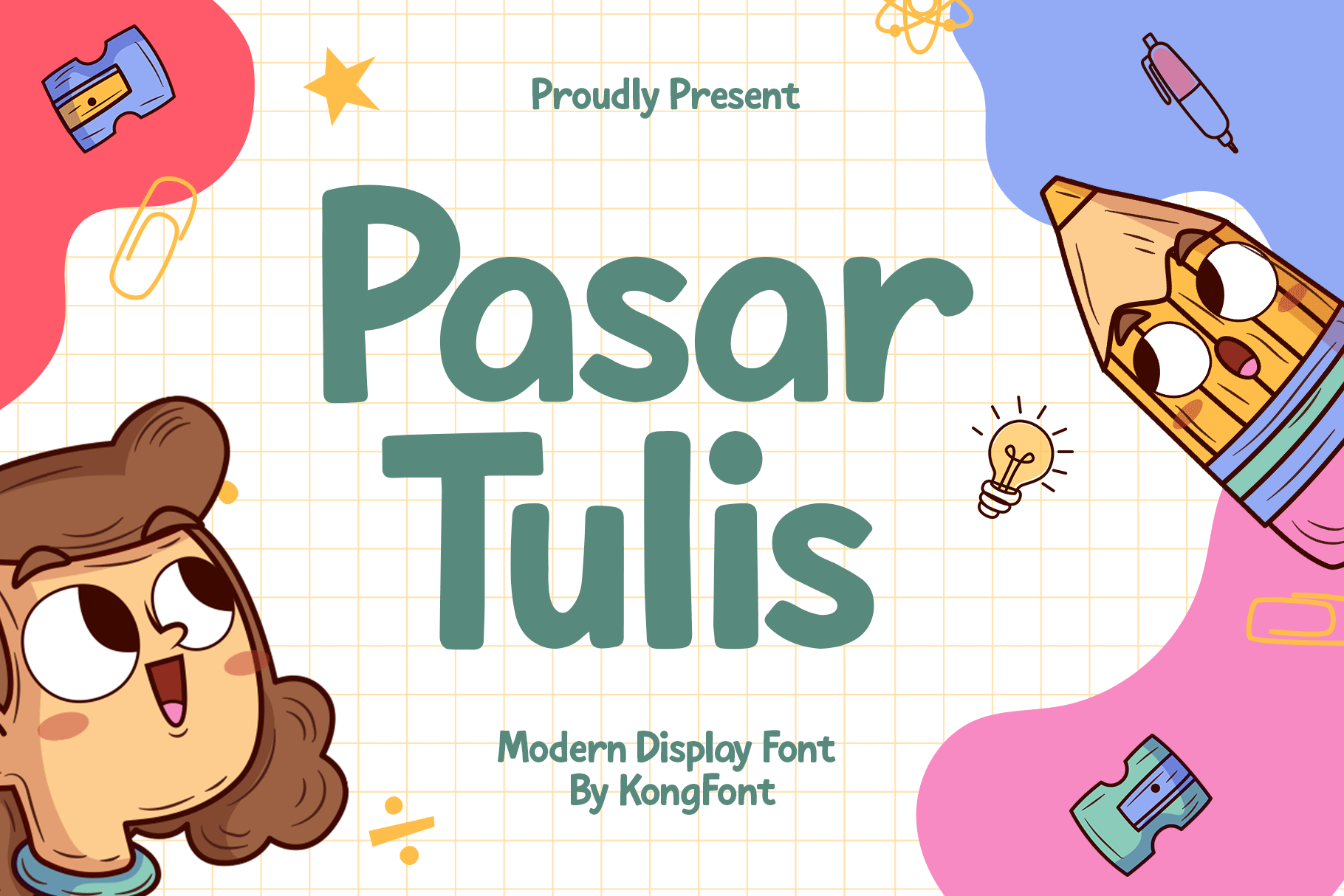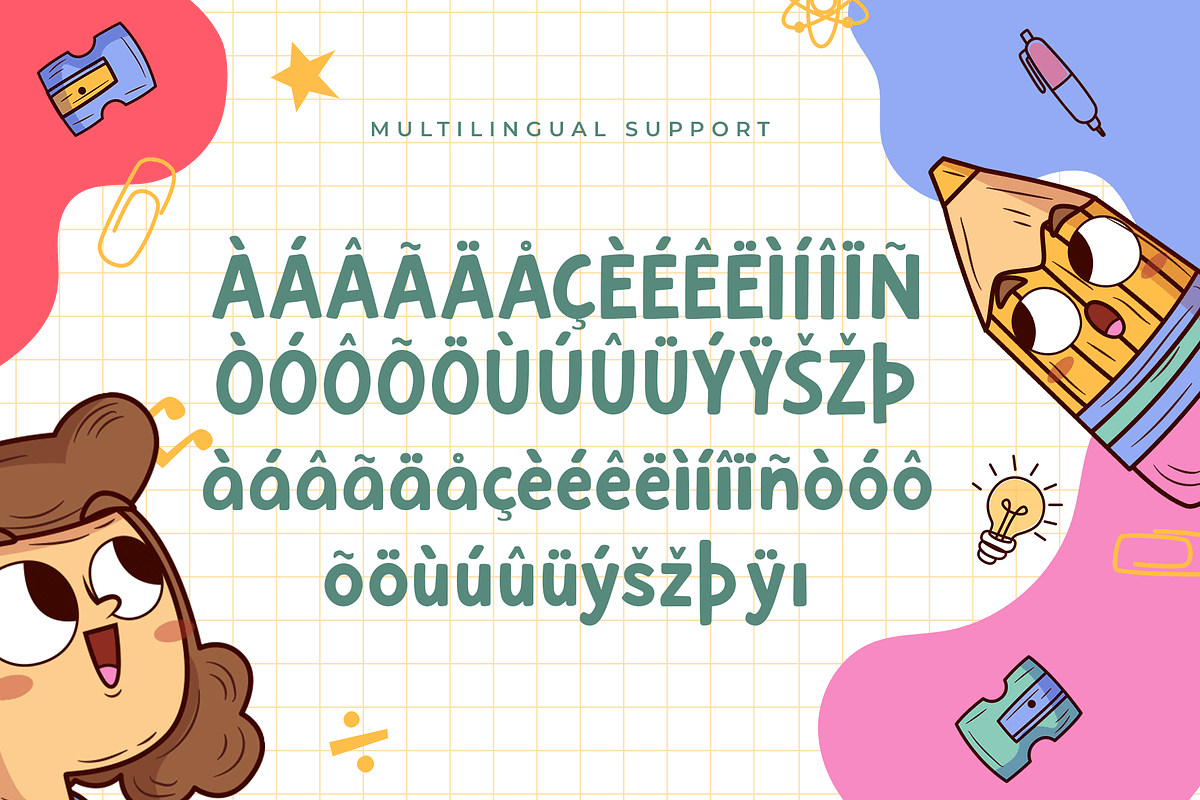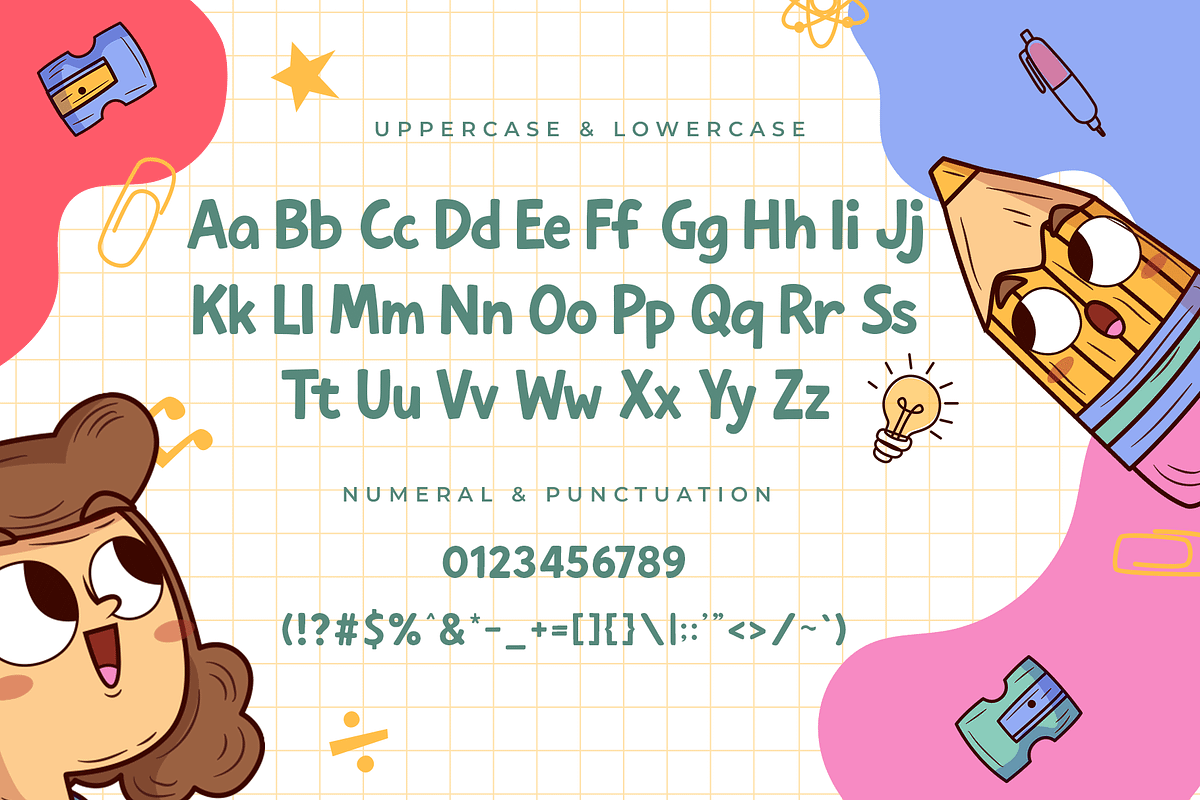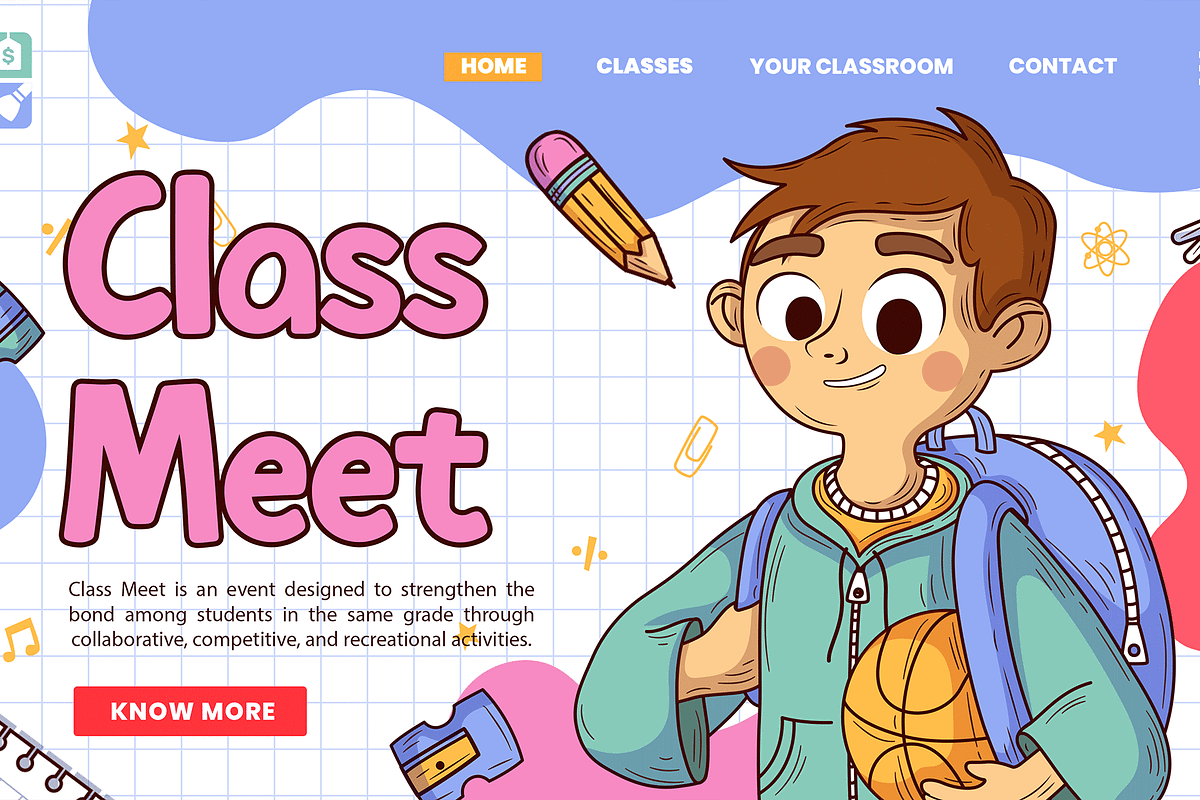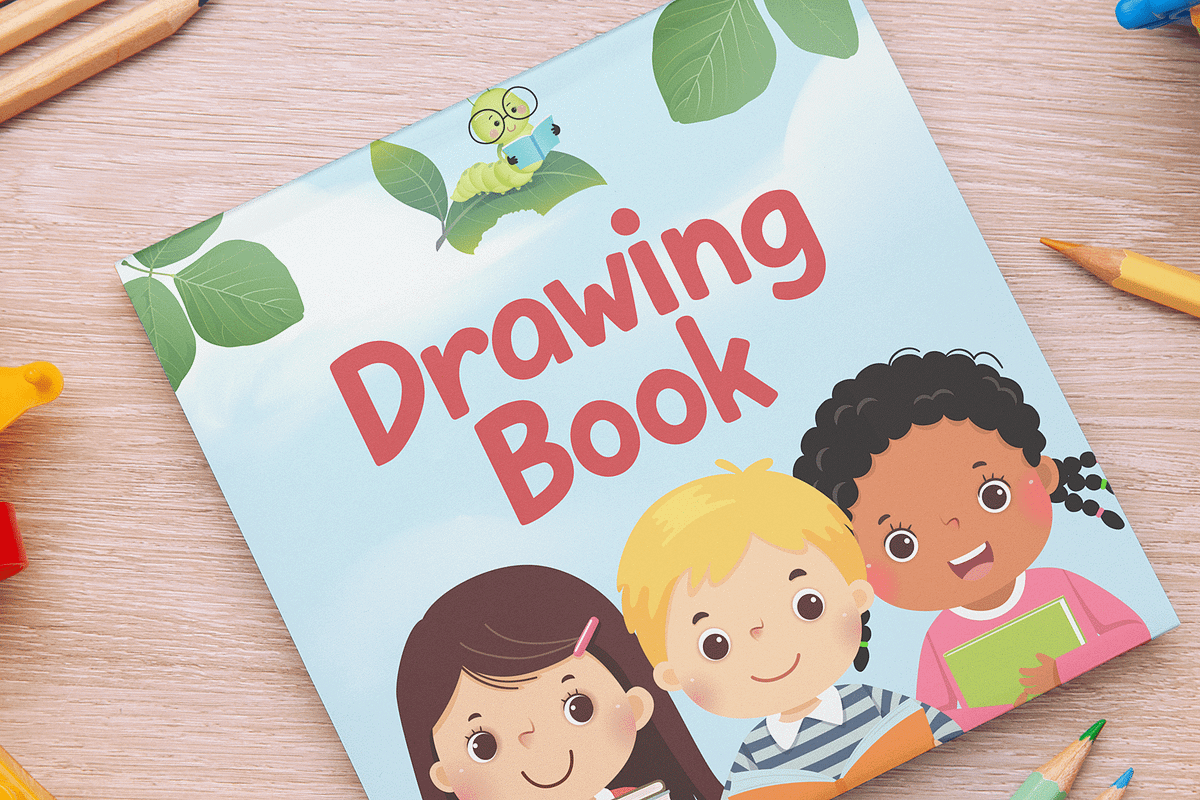
Pasartulis – Modern Display Font
Pasartulis is a modern display font inspired by the vibrant energy of street signage and handwritten market lettering. Its bold, expressive forms bring a handcrafted personality that stands out in any creative layout. With rounded edges and quirky strokes, Pasartulis strikes the perfect balance between fun and function.
Ideal for packaging, posters, branding, headlines, and social media graphics, this font adds a touch of friendliness and creativity to your visual projects. Its playful yet structured style makes it especially fitting for kids-themed designs, DIY projects, or anything that needs an inviting personality.
Let Pasartulis bring that spontaneous street-market spirit into your designs—with a modern twist.